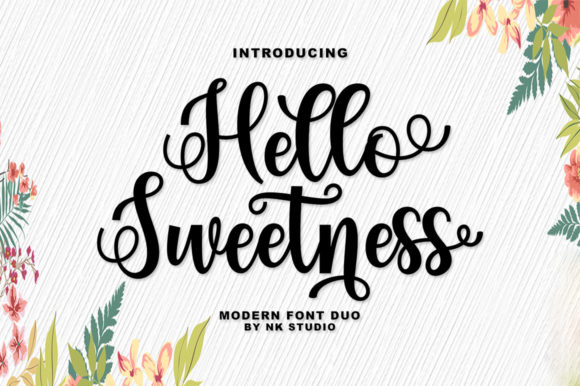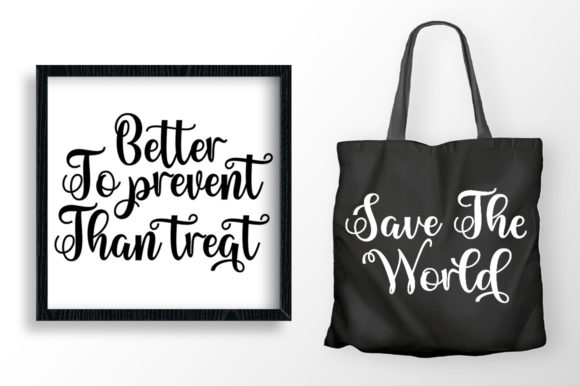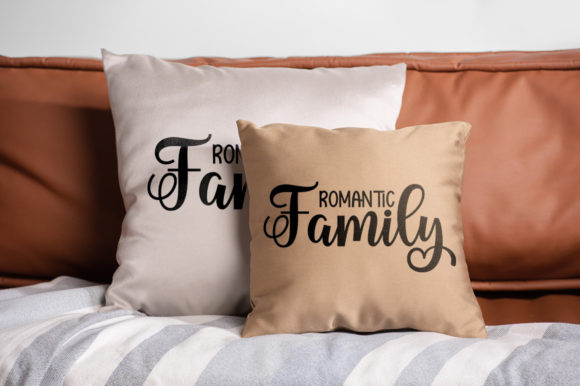
About Hello Sweetness Font
Hello Sweetness is a lovely duo font (script and sans serif). This gentle font will look gorgeous on a variety of design ideas. It is PUA encoded which means you can access all of the glyphs and swashes with ease!Â